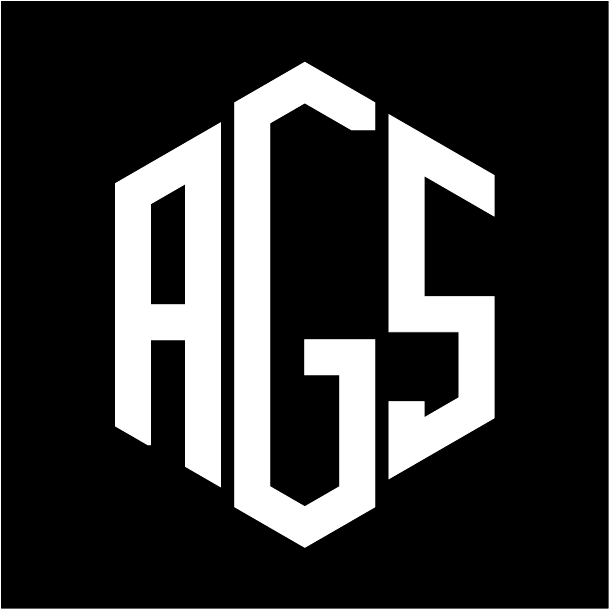
Exploring Illustrator
For this, I wanted to learn something completely new that I haven’t attempted before as I had experience with using illustrator for the film poster project and the pictogram project as well as some other things. I chose the creating a letter logo task because I felt this would be a good opportunity to enhance my typography skills whilst also improving my knowledge and illustrator.
Design ideas and design process
I started by drawing out a lot of sketches and rough drawings to help me brainstorm. I also played around with different ways of arranging the letters, before settling on the main idea.
Initially I was really interested in a monogram inspired logo design and I tried this out in illustrator. I wanted a traditional logo and for that I used a serif typeface to achieve the look I wanted. I originally used the font Bressay Devanagari. I tried a solid version with this font, but it felt too cluttered. I changed the font to Superclarendon and recreated the design thought this was successful but when I showed this design to others, the ‘G’ wasn’t easily identifiable to them. Because of this I tried a completely different design.
I felt the hexagon was somewhat successful, but I kept working on it as I didn’t feel having the ‘A’ facing the wrong way was any good, but I couldn’t work out how to turn the ‘A’ around and have it still look legible, so I changed to a circle. I followed a tutorial on setting letters within a shape and also learnt how to use the shape builder tool in illustrator. I made some sketches as well to work out how my particular letters would look within the shape. I chose to do a hexagon shape to better follow the tutorial.
The circle was very successful but I felt the hexagon looked better so I experimented with the guidelines from the video so that the ‘A’ would fit in better.
I was somewhat new to using illustrator for text related designs, so I used tutorials to help me understand how to warp and edit letters, add multiple strokes to letters. for this task I learn how to shape letters into an actual shape and how to use the shape builder tool with guidelines. I followed a YouTube tutorial as well as many articles. The YouTube tutorial was very helpful as a visual guide helped me to understand exactly what I had to do to create the logo that I needed. Due to a visual guide, I was then able to adapt the skill I had learned to fit my own logo and create different shapes as well as different styles of letters which allowed me to have a variety of options that I could choose from as my final design.
Another tutorial that was very helpful for me was on how to reshape a path using the direct selection tool. This tutorial was very helpful for me the monogram letter logos I had to create smooth lines for the ‘S’ and ‘G’ and then fit the two letters together in a smooth manner.
Resources for research and inspiration
The additional resources that I found were the YouTube tutorial on creating Latin logo within a shape and the Adobe articles on using the direct selection tool as well as on puppet warp. these tutorials help me develop my design ideas as they allowed me to bring my design ideas to life as I originally wasn’t sure how to fit letters smoothly within a shape as well as how to fit letters within each other and not make them look like they’ve just been placed on but instead drawn as one.
I would still like to improve on my use of the shape builder tool because I’ve only used it in one way instead of experimenting with different ideas. Although, I was able to create a successful and legible design, I wish that I took the time to experiment and explore with the shape builder tool more as I feel it would have allowed me to create a more creative and unique design.
Learning across the module
The software skills and design skills I’ve learned across the module in Photoshop are how to transform images by using layers, the adjustment panel, removing backgrounds in Photoshop and moving them into new/separate layers as well as learning to use the magnetic lasso tool.
The software skills and design skills I’ve learned across the module in Illustrator are how to use the pathfinder tool and warping tools, in particular, how to use the puppet warp tool as well as the direct selection tool. Furthermore, I have also learnt how to use the shape builder tool.
The software skills and design skills I’ve learned across the module in Indesign are how to use the table function and table styles and use of paragraph rules and tabs.